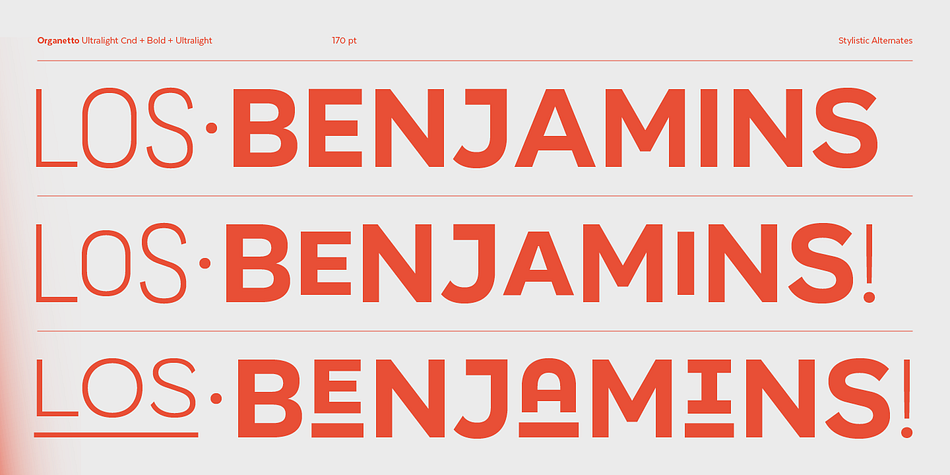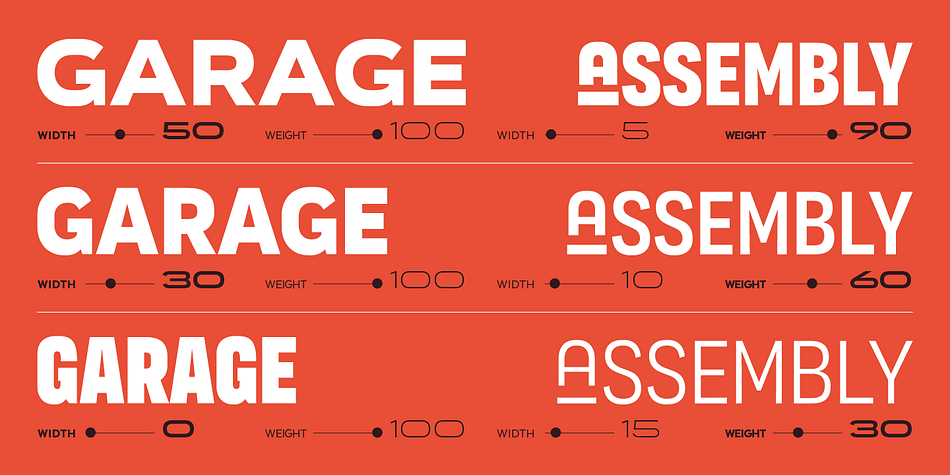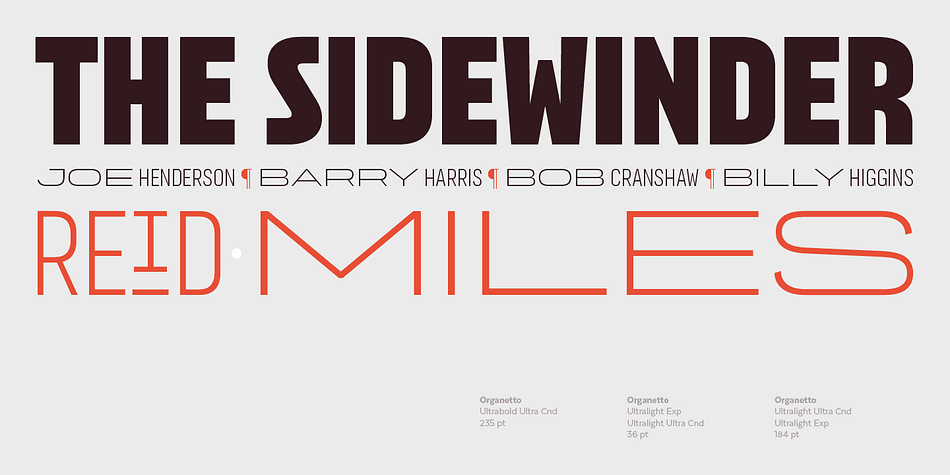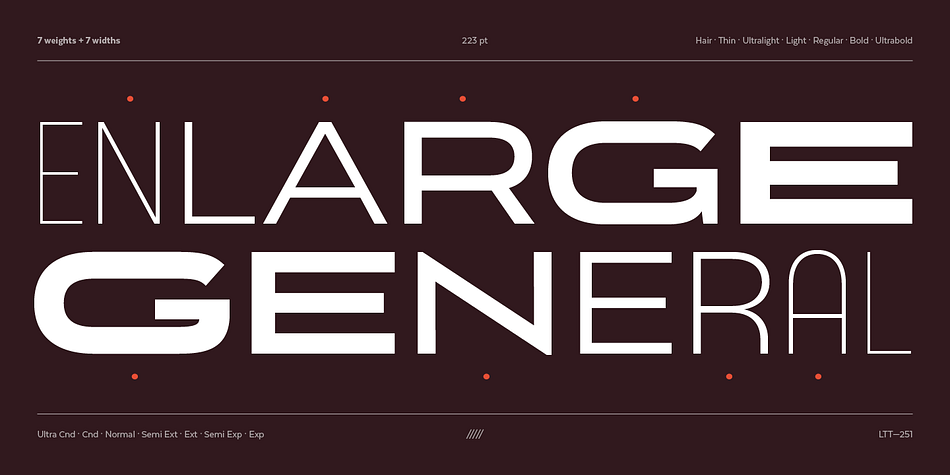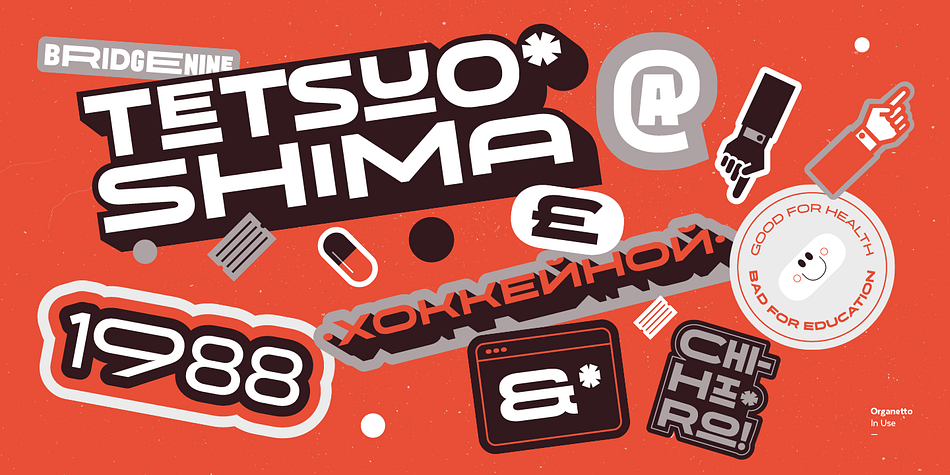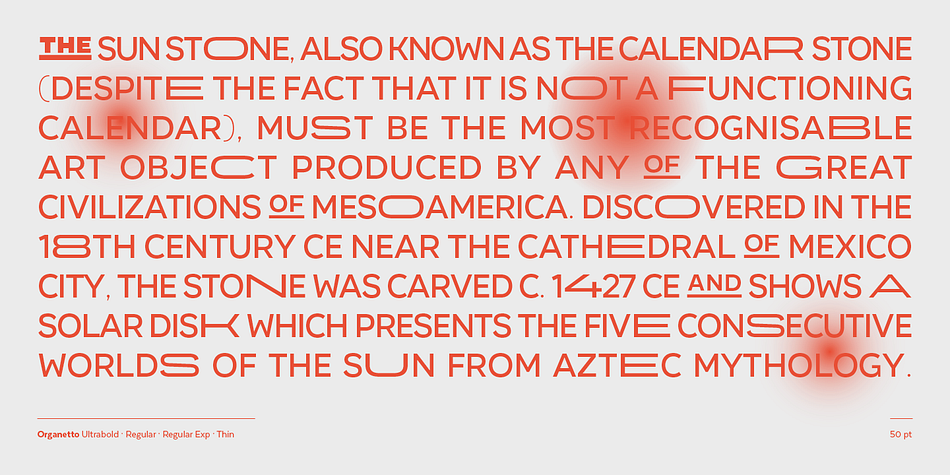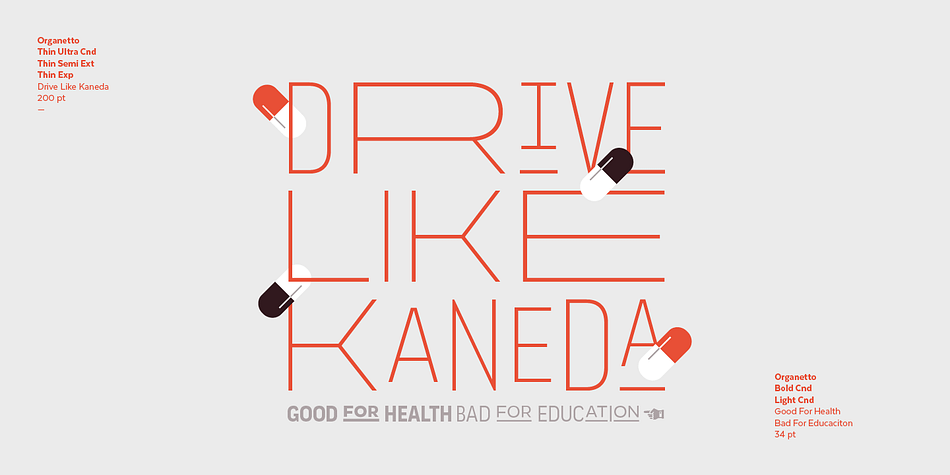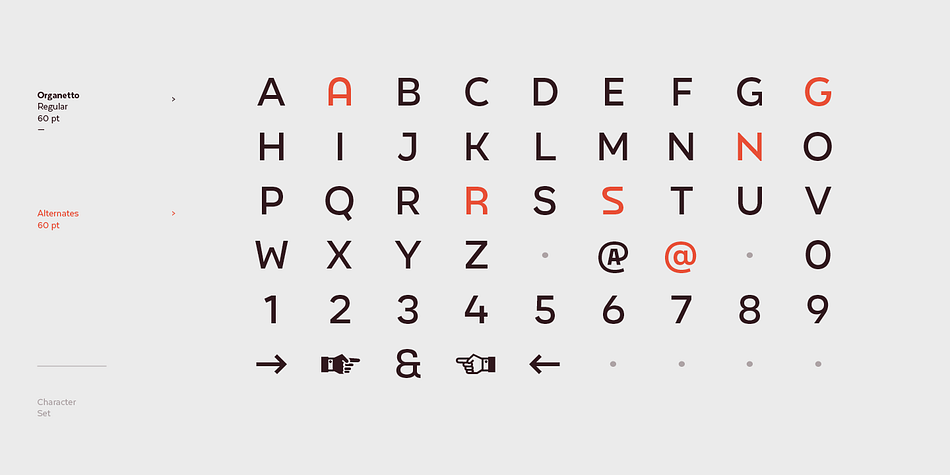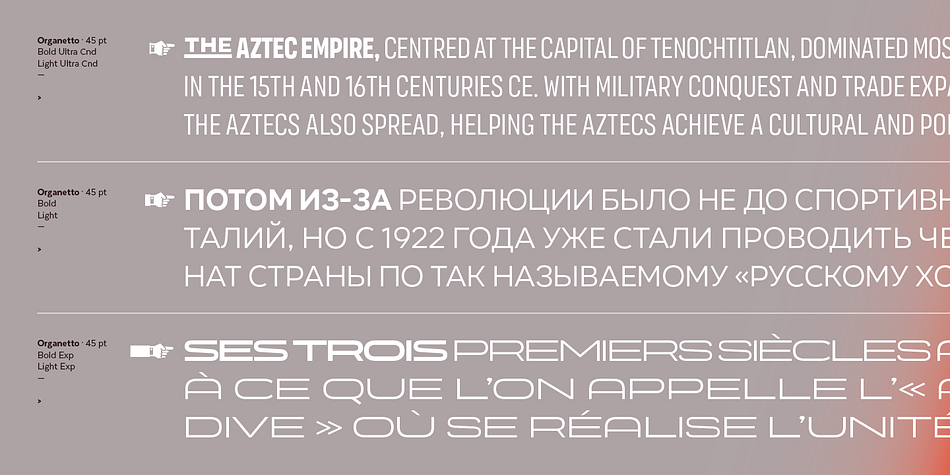
Designed by César Araya and Latinotype Team, Organetto is a sans serif font family. This typeface has fifty styles and was published by Latinotype.
Organetto is a typeface, inspired by the lettering found on Art Deco posters, whose design embraces the latest digital font technology. This versatile font contains multiple widths which make it an ideal solution to fit every design need.
In addition to its functional geometric style and different widths, Organetto also includes alternate characters that provide even more design options. All these features make the font a great choice for graphic designers and art directors, logos, wordmarks, short text, etc.
Organetto is a sans-serif typeface with modern proportions and straight-edge terminals. It comes in 7 weights, ranging from Hair to Ultrabold, and 7 widths (from Ultra Condensed to Expanded) and contains a set of 397 characters that support 180 different languages. Organetto also includes OpenType features- 3 sets of alternates, catchwords and titling.